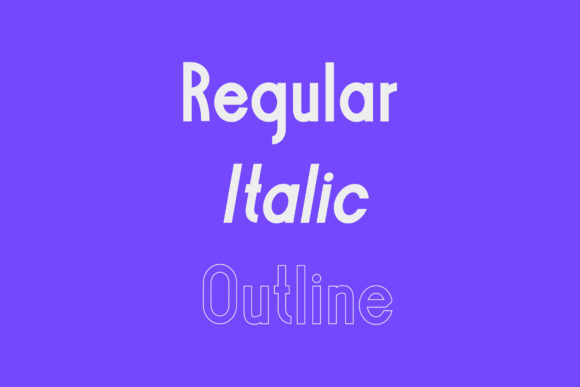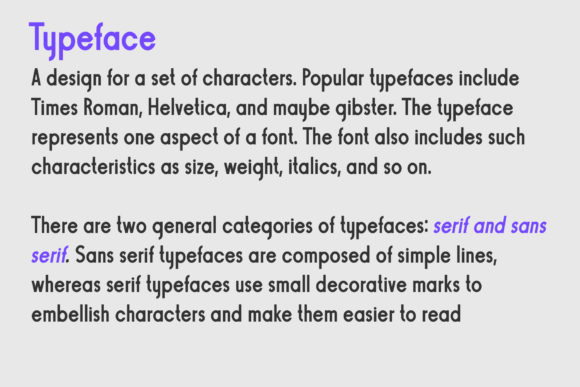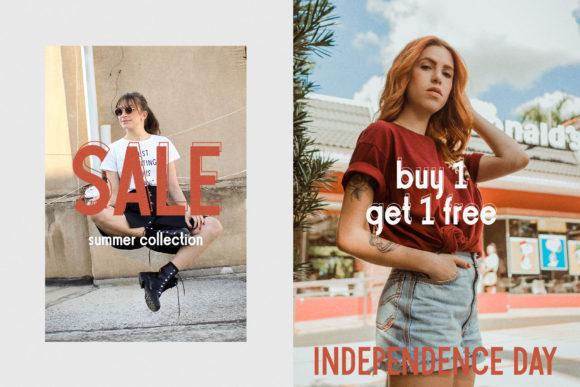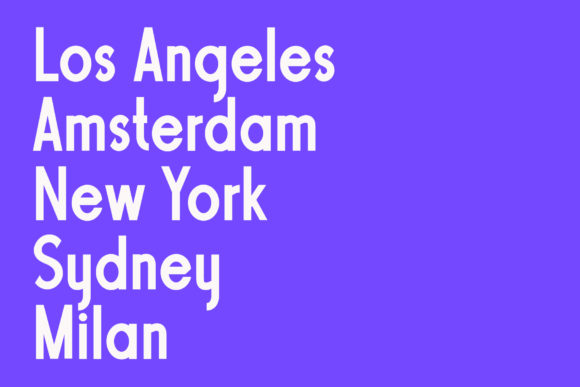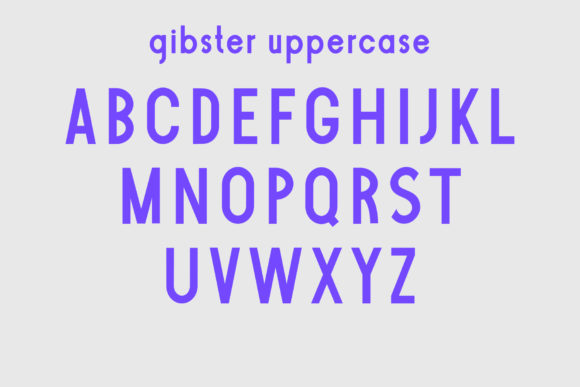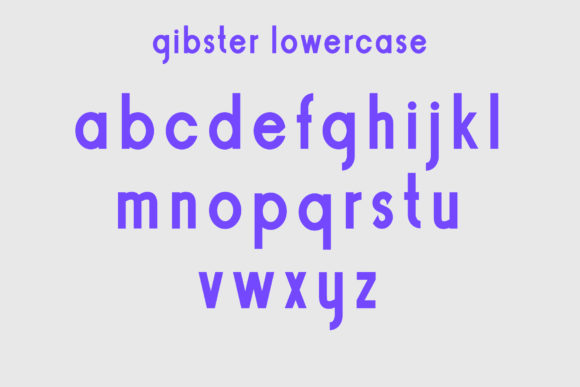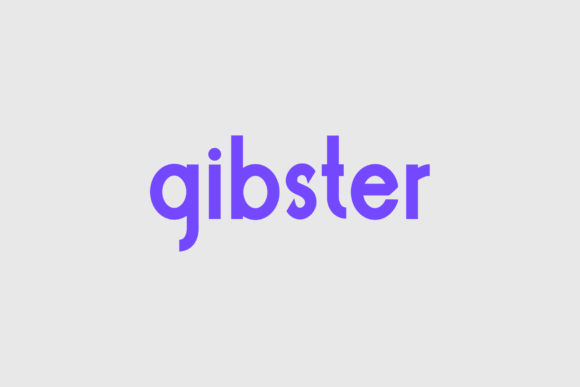
Introducing Gibster Font: The Ultimate Sans Serif for Creative Projects
Are you tired of using the same old fonts for your design projects? Look no further than Gibster Font, a sharp yet simple lettered sans serif font that’s perfect for adding a touch of elegance and sophistication to your creative ideas. With its versatility and wide range of applications, Gibster Font is sure to become a staple in your design toolkit.
What is Gibster Font?
Gibster Font is a modern sans serif font that’s designed to be both clean and stylish. Its simple, lettered design makes it easy to read and understand, while its sharp lines and edges give it a sleek and contemporary look. Whether you’re working on a logo, brochure, or website, Gibster Font is the perfect choice for adding a professional touch to your design.
Key Features of Gibster Font
• Sharp and Simple Design: Gibster Font features a sharp and simple design that’s perfect for creating clean and elegant designs.
• Sans Serif Style: The font’s sans serif style makes it easy to read and understand, even at small sizes.
• Versatile: Gibster Font can be used for a wide range of projects, from logos and brochures to websites and social media graphics.
• Easy to Match: The font’s simple design makes it easy to match with other fonts and design elements, giving you endless possibilities for creative expression.
Why Choose Gibster Font?
So why choose Gibster Font for your design projects? Here are just a few reasons:
• Unique and Creative: Gibster Font is a unique and creative font that’s sure to make your designs stand out from the crowd.
• Professional Look: The font’s sharp and simple design gives it a professional look that’s perfect for businesses and organizations.
• High-Quality: The font is high-quality and comes with a range of features, including multiple weights and styles.
• Pair with Other Fonts: Pair Gibster Font with other fonts and design elements to create a unique and creative look.
• Experiment with Sizes: Experiment with different sizes and styles to find the perfect look for your design.
• Use for Headings and Titles: Use Gibster Font for headings and titles to add a touch of elegance and sophistication to your design.
Gibster Font for Designers and Crafters
Gibster Font is perfect for designers and crafters who are looking for a unique and creative font to add to their toolkit. Whether you’re working on a logo, brochure, or website, Gibster Font is sure to make your designs stand out. With its versatility and wide range of applications, Gibster Font is a must-have for any designer or crafter looking to take their designs to the next level.